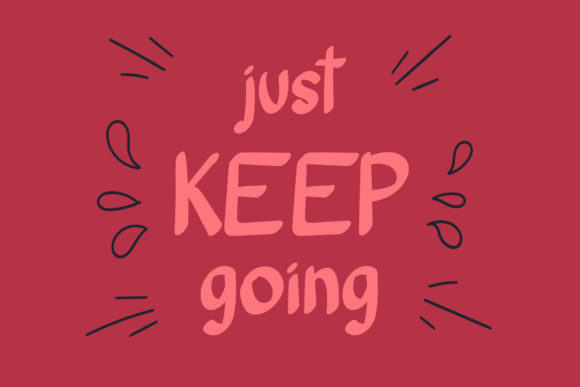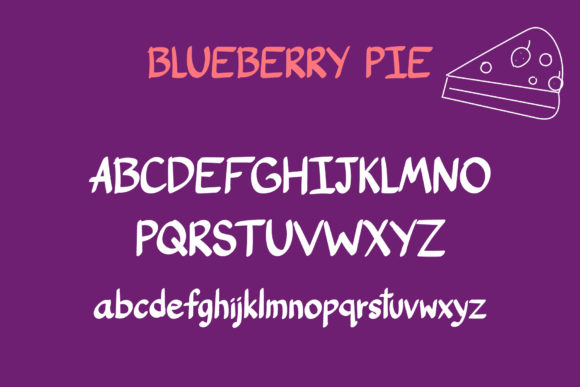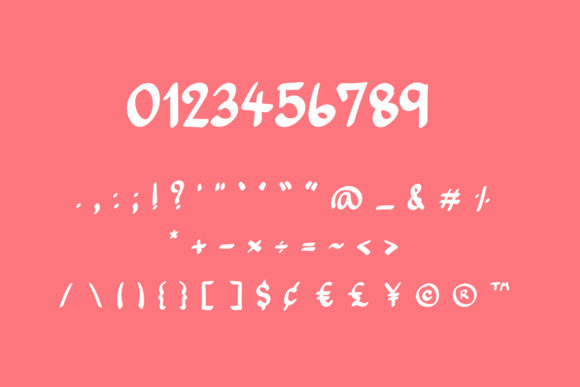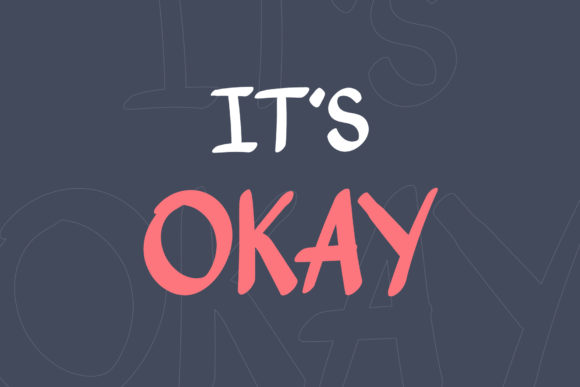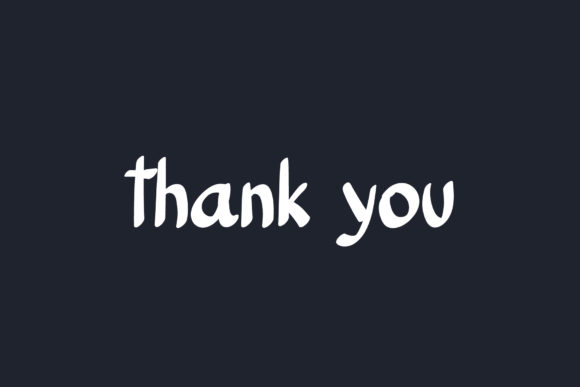
Introducing Blueberry Pie Font: The Ultimate Handwritten Font for Creative Projects
Are you a designer, crafter, or DIY enthusiast looking for a font that can add a touch of warmth and personality to your creative projects? Look no further than Blueberry Pie Font! This adorable handwritten font is designed to bring a friendly and approachable feel to any design, making it perfect for a wide range of applications, from Instagram graphics to calligraphy scripts.
The Characteristics of Blueberry Pie Font
Blueberry Pie Font is a cute and casual handwritten font that boasts an incredibly friendly feel. Its unique characteristics make it stand out from other fonts, and its versatility ensures that it can be used in various contexts. Here are some of the key features that make Blueberry Pie Font so special:
- Handwritten with love: Blueberry Pie Font is carefully crafted with a handwritten touch, giving it a warm and personal feel that’s hard to resist.
- Cute and casual: This font is designed to be playful and laid-back, making it perfect for designs that require a friendly and approachable tone.
- Incredibly friendly feel: The font’s friendly feel makes it easy to connect with your audience, whether you’re creating graphics for social media, crafting DIY projects, or designing marketing materials.
Uses for Blueberry Pie Font
Blueberry Pie Font is an incredibly versatile font that can be used in a wide range of creative projects. Here are some ideas to get you started:
- Instagram graphics: Add a personal touch to your Instagram posts and stories with Blueberry Pie Font. Its friendly feel makes it perfect for engaging with your audience and adding a human touch to your brand.
- Calligraphy scripts: Use Blueberry Pie Font to create beautiful calligraphy scripts for DIY projects, such as wedding invitations, party decorations, or handmade cards.
- DIY projects: Whether you’re crafting jewelry, decorating a room, or creating handmade gifts, Blueberry Pie Font can add a touch of personality to your projects.
- Marketing materials: Use Blueberry Pie Font in marketing materials, such as brochures, flyers, or business cards, to add a friendly and approachable tone to your brand.
Why Choose Blueberry Pie Font?
With so many fonts available, why choose Blueberry Pie Font? Here are just a few reasons why this font stands out:
- Unique and eye-catching: Blueberry Pie Font is a one-of-a-kind font that will help your designs stand out from the crowd.
- Easy to read: Despite its playful feel, Blueberry Pie Font is easy to read, making it perfect for designs that require a clear and concise message.
- Versatile: This font can be used in a wide range of contexts, from digital designs to print materials.
Tips for Using Blueberry Pie Font
To get the most out of Blueberry Pie Font, here are a few tips to keep in mind:
- Pair with complementary fonts: Combine Blueberry Pie Font with complementary fonts to create a unique and visually appealing design.
- Experiment with colors: Don’t be afraid to experiment with different colors and textures to add depth and interest to your designs.
- Keep it simple: While Blueberry Pie Font is perfect for adding a playful touch to your designs, it’s essential to keep your overall design simple and easy to read.
Blueberry Pie Font is a unique and versatile handwritten font that’s perfect for designers, crafters, and DIY enthusiasts. Its friendly feel and playful characteristics make it an excellent choice for a wide range of creative projects, from Instagram graphics to calligraphy scripts. With its ease of use and endless possibilities, Blueberry Pie Font is sure to become a favorite in your design toolkit.